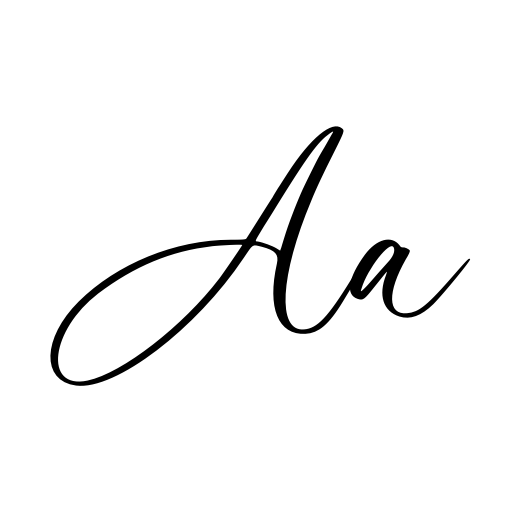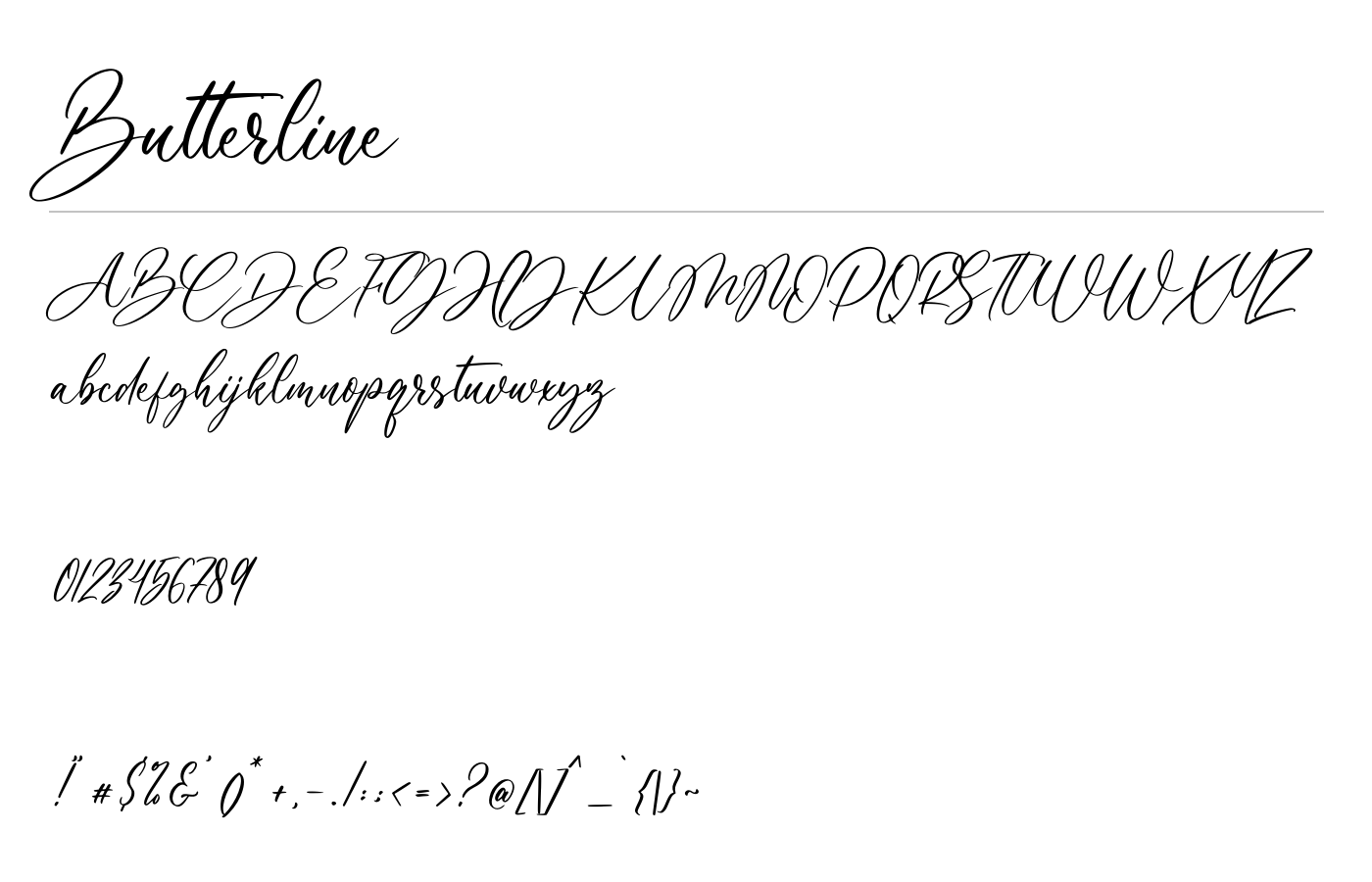
Butterline is an elegant, flowing script font characterized by its delicate, handwritten style with slender strokes and smooth connections. It exudes a refined and graceful personality, making it perfect for luxury branding, invitations, and stylish editorial use where a touch of sophistication and warmth is desired. Its airy, legible letterforms work beautifully in headlines and decorative text, creating a classy yet approachable feel.
Butterline Font